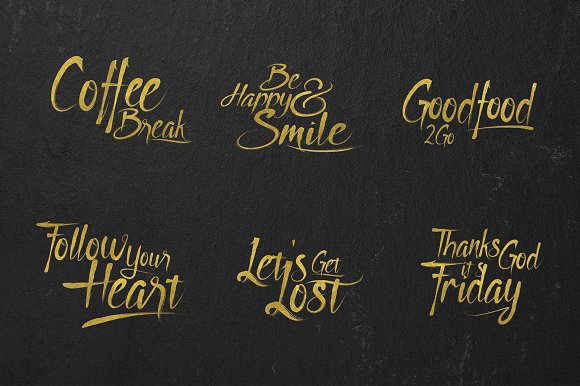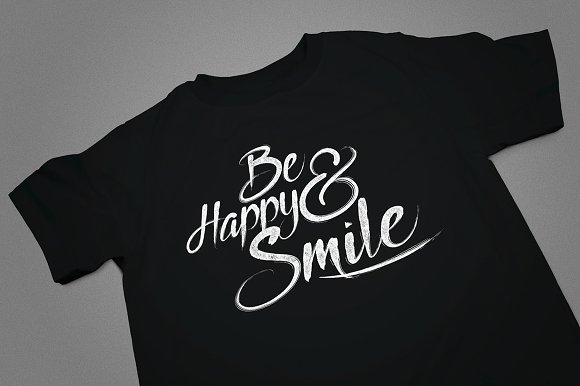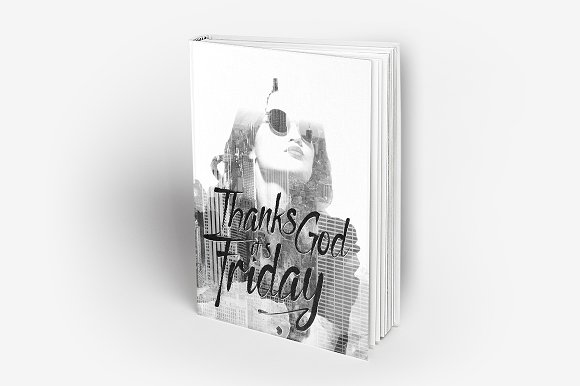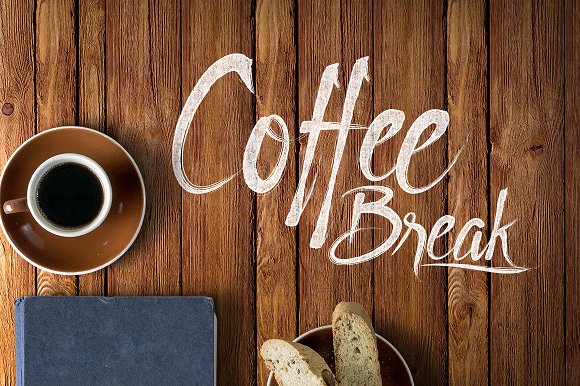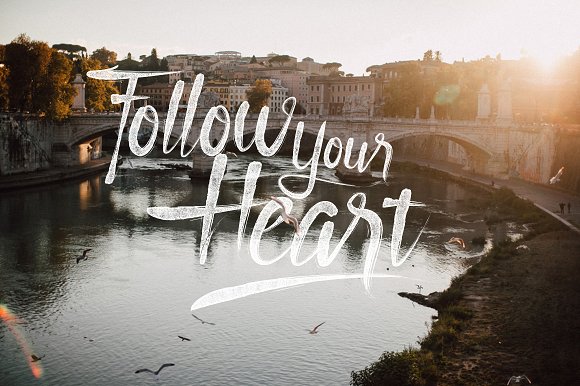
Godfeem Font
About Godfeem Font
Godfeem is a font that uses a brush handwriting style. The character are very unique and fun. This font contains two formats (OTF & TTF) and you will also get italic characters besides the regular ones. Perfect for those who love to create fun projects!